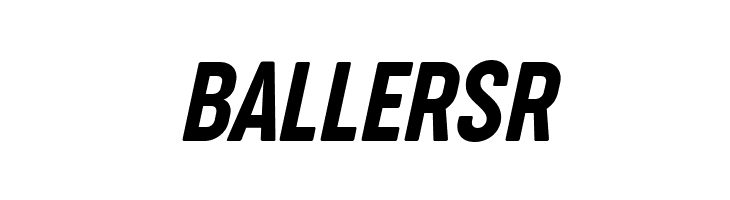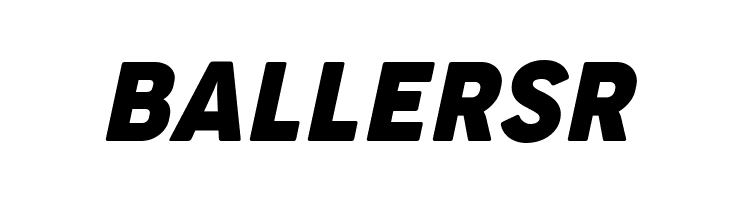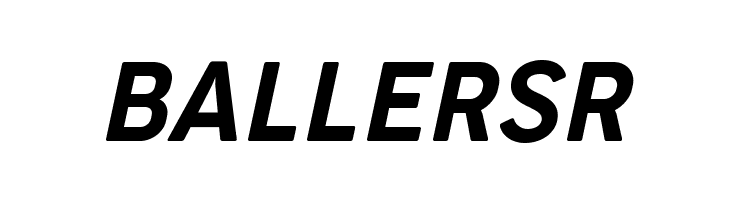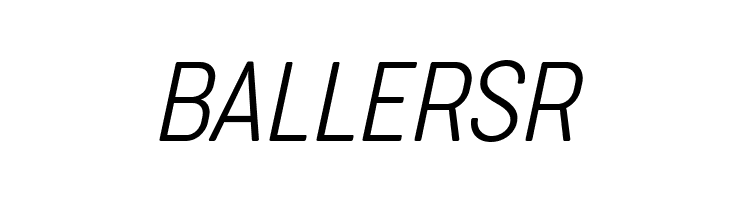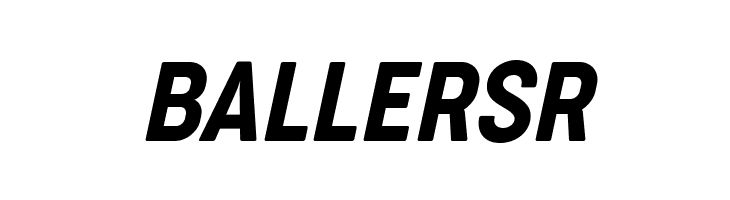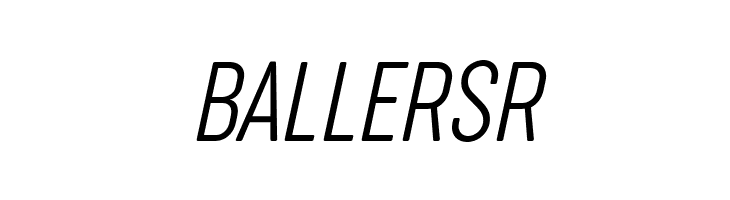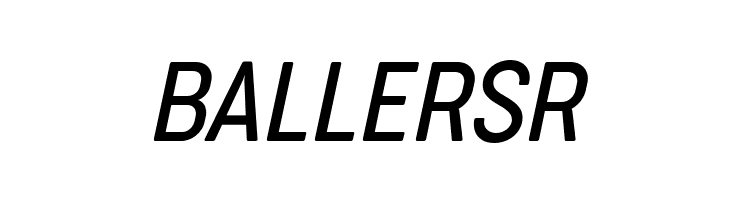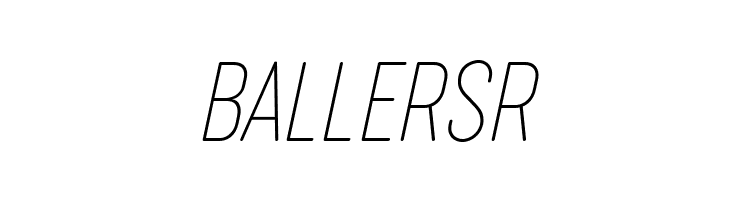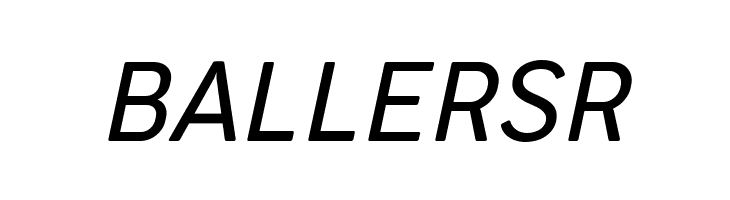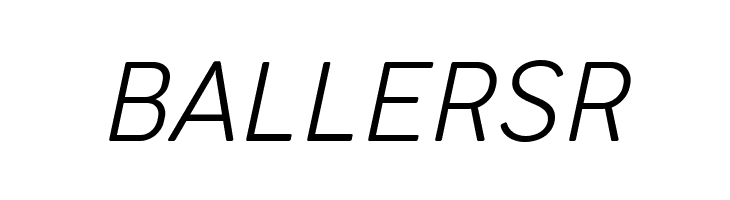
A modern, compressed, semi-light italic font with a sleek and dynamic style.
A modern, thin, and compressed font with a sleek, vertical design.
A sleek, thin, and italicized font with a modern, compressed style.
A modern, ultra-light, condensed font with a minimalist design.
A modern, ultra-light, compressed italic font with a sleek and minimalistic design.
A bold, condensed font with a textured letterpress effect, ideal for vintage and industrial designs.
A bold, condensed, and italicized font with a modern style.
A modern, condensed sans-serif font with a light weight and geometric design.
A modern, condensed, light italic font with a sleek and professional appearance.
A bold, modern, and condensed font ideal for impactful headlines.
A modern, condensed font with bold, uniform strokes and high legibility.
A modern, condensed, semi-light italic font with sleek and dynamic styling.
A modern, thin, and condensed font with a sleek geometric design.
A sleek, modern, condensed thin italic font with a clean and elegant design.
A sleek, modern, and ultra-light condensed font ideal for contemporary designs.
A modern, ultra-light, condensed italic font with a sleek and dynamic appearance.
A bold, distressed font with a vintage letterpress effect and narrow, textured characters.
A modern, narrow, and italicized font with bold characters.
A modern, narrow sans-serif font with a clean and sleek design.
A sleek, narrow, and italicized font with a modern and elegant design.
A bold, modern typeface with clean, geometric lines and a slightly condensed style.
A modern, narrow sans-serif font with a clean and professional look.
A modern, narrow, semilight italic font with clean lines and excellent readability.
A modern, thin, and narrow font with clean lines and a minimalist aesthetic.
A sleek, modern, narrow, and italic font with thin strokes.
A sleek, ultra-light, and modern narrow font with clean lines.
A sleek, narrow, ultra-light italic font with a modern design.
A bold, modern sans-serif font with geometric influences and strong readability.
A modern, bold, and italicized typeface with consistent stroke thickness.
A bold, modern font with geometric uppercase and cursive lowercase letters.
A bold, geometric font with sharp lines and a modern aesthetic.
A bold, modern sans-serif font with clean lines and geometric structure.
A bold, modern sans-serif font with geometric precision and high legibility.
A bold, modern font with thick strokes and strong presence.